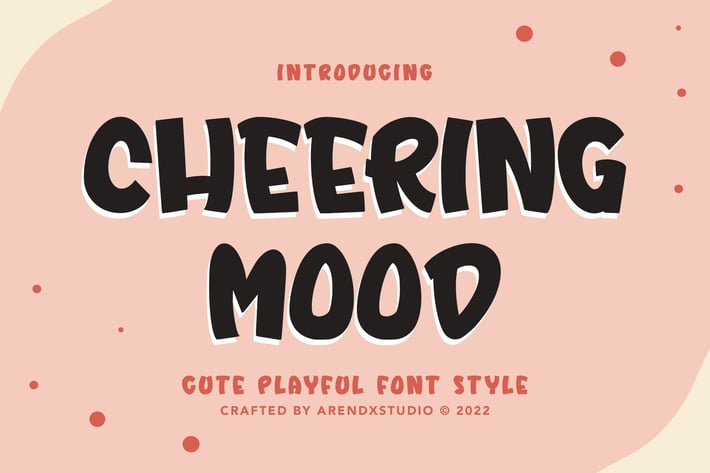
Cheering Mood - Cute Playful Font
Cheering Mood - Cute Playful Font is a font with distinctive handwritten characters perfect for branding projects, logos, wedding designs, media posts, advertisements, product packaging, product designs, labels, photography, watermarks, invitations, stationery, and any project who need handwritten dishes.